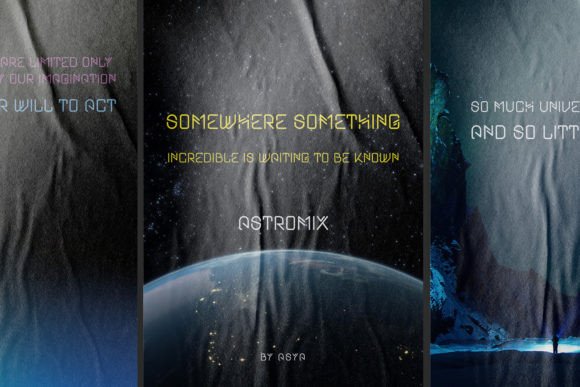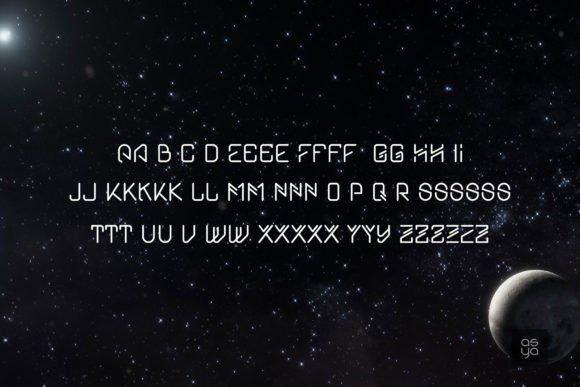
The Cosmic Connection: Unleashing the Power of Astromix Font
Have you ever stared up at the night sky, feeling the weightlessness of the stars and the infinite possibilities they represent? That’s exactly the kind of creative spark that drives designers to push the boundaries of typography. For those seeking to inject a dash of futuristic flair into their designs, the Astromix Font is the perfect catalyst.
Astromix Font is a cutting-edge, sci-fi inspired display font that’s designed to transport your audience to a world of innovation and high-tech wonder. Whether you’re working on a logo, branding project, or streetwear design, Astromix Font adds an unmistakable edge that sets your work apart from the crowd.
Astromix Font Key Features
- Font Family: Astromix is a unique, modern font family designed for use in a variety of applications, including digital displays and print materials.
- Character Set: The font family includes a comprehensive set of characters, including Latin, Cyrillic, and Greek alphabets, as well as a range of punctuation and symbol glyphs.
- Unique Characteristics: Astromix Font features a distinctive, futuristic design aesthetic, with a focus on clean lines, geometric shapes, and a limited color palette.
Astromix Font Review
I recently had the chance to work with the Astromix font, and I must say it’s a unique addition to any design project. ✨ One of the things that works well with this font is its versatility – it’s perfect for both digital and print designs. The font’s clean lines and modern aesthetic make it easy to read and use in a variety of contexts.
Another advantage of the Astromix font is its wide range of characters and glyphs. ✨ The font includes a variety of symbols, punctuation marks, and even Cyrillic and Greek alphabets, making it a great choice for international projects.
While the Astromix font has many great qualities, there are a few limitations that should be considered.
- ⚠️ The font’s bold weight is not as robust as some other fonts in this style, which may make it less suitable for headlines or titles.
- ⚠️ The font does not include a true italic weight, which may be a problem for designers who rely on this feature.
In conclusion, the Astromix font is a solid choice for designers looking for a modern, clean font with a wide range of characters. While it has a few limitations, the font’s versatility and range of features make it a great addition to any design project.
Tips: Experiment with different font sizes and colors to create a visually appealing design. Use the Astromix Font for headings and titles to add a touch of futuristic feel.
Tips: Use the Astromix Font in combination with other futuristic elements, such as neon lights or space-themed graphics, to create a cohesive design.
Tips: Use the Astromix Font for headings and titles in presentations or documents to add a touch of modernity and professionalism.
The Astromix Font is perfect for:
- Space-themed designs and graphics.
- Futuristic and sci-fi inspired projects.
- Modern and minimalist designs.